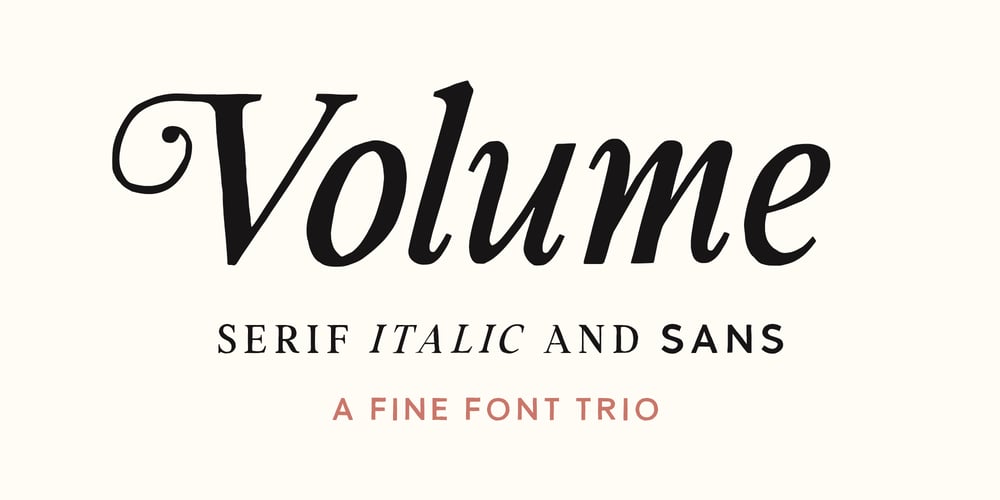
Volume TC
Volume TC font
Volume TC Font Family was designed by Tom Chalky and published by Tom Chalky. Volume TC contains 3 styles and family package options. Introducing Volume! A unique take on a classic trio: a serif, an italic, and a sans. Professionally imperfect, Volume takes a formal approach to the handcrafted genre of font design. It is a versatile family suitable for a vast array of design briefs!Stylistic Alternates! The Italic family includes an array of wonderfully useful stylistic alternates – ready and waiting to add a dash of flare to your work.Compatible & Multilingual The fonts are in the OpenType font format, which is accepted within most design software (including mobile and tablet design apps!). Multilingual support is also included for Basic Latin, Western European, Euro, and Pan African Latin.